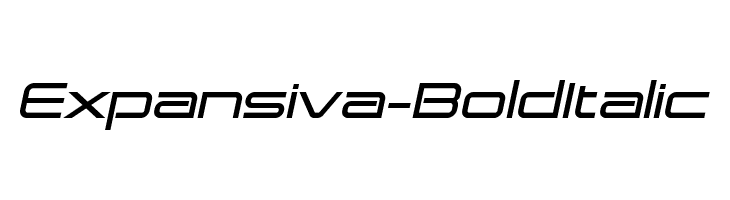
A modern sans-serif font with geometric shapes and uniform stroke width.
A textured, wood-carved style font with bold, rounded characters.
A bold, distressed stencil-style font with an industrial, vintage feel.
A bold, playful font with thick, rounded characters and tight spacing.
A bold, geometric font with a modern, condensed style.
An elegant and flowing script font with decorative loops and flourishes.
A bold, shadowed font with a modern and artistic style.
A sleek, modern, condensed italic font with dynamic angles.
A bold, geometric font with a strong, industrial presence.
A bold, jagged, and energetic font with a graffiti-like style.
A bold, dynamic script font with calligraphic flair and strong presence.
Icon-based decorative font featuring TV and media device illustrations.
A playful, rounded font with smooth curves and a friendly appearance.
A bold, angular font with a strong, geometric style.
A playful handwritten font with rounded, informal characters.
A bold, italicized font with a futuristic and angular design.
A bold, gothic Blackletter font with intricate and ornate details.
A bold, industrial-style font with mechanical, gear-like elements and strong contrast.
A modern, geometric, and condensed font with bold strokes and rounded edges.
A bold, geometric font with sharp angles and modern design.
A bold pictogram dingbat font with diverse object silhouettes.
A playful, bold font with rounded, irregular shapes and a hand-drawn feel.
An ornate and decorative font with intricate flourishes and embellishments.
A versatile set of clean, minimalistic icons for digital applications.
A bold, distressed font with a vintage, rugged texture.